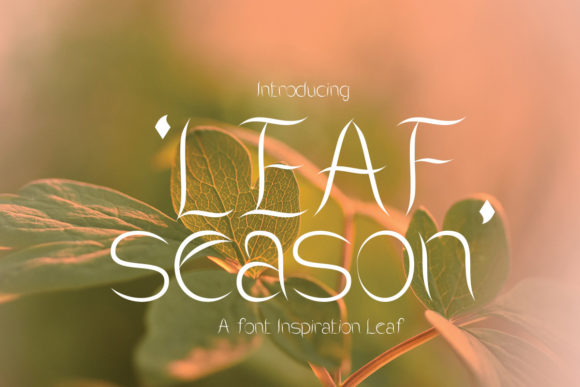
In a world of ordinary fonts, there exists an extraordinary gem, a font that dances with the whispers of autumn leaves and encapsulates the essence of nature's transition. Meet Leaf Season Font, a display font that captures the magic of falling leaves, vibrant hues, and the crisp air of the changing seasons.
Step into a world where your designs come alive, adorned with the beauty of autumn's embrace. Leaf Season Font is more than just a collection of letters and symbols; it's an experience that ignites creativity and breathes life into your projects.
With its delicate strokes and swirling curves, Leaf Season Font transforms ordinary words into captivating works of art. Whether you're crafting a heartfelt message, designing a stunning logo, or adding a touch of elegance to your social media posts, this font will elevate your designs to new heights.
Picture your designs adorned with the charm of autumn leaves, each letter a brushstroke of nature's artistry. Imagine your words dancing across the page, carrying the warmth and nostalgia of the changing seasons. Leaf Season Font is the perfect companion for those who seek to create designs that resonate with the heart and leave a lasting impression.
With Leaf Season Font, the possibilities are endless. Unleash your imagination and explore new creative horizons. Let your designs flourish with the vibrant colors of autumn, and let the beauty of nature inspire your every creation.
So why settle for ordinary fonts when you can immerse yourself in the extraordinary? Embrace the magic of Leaf Season Font and let your designs speak volumes with the eloquence of autumn's embrace.